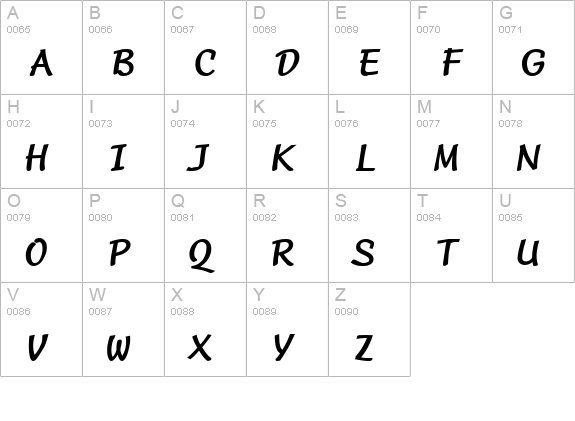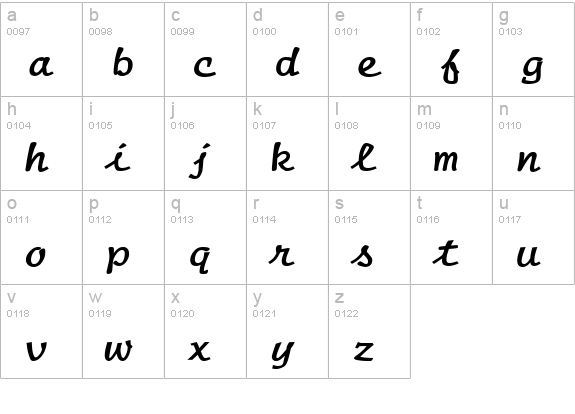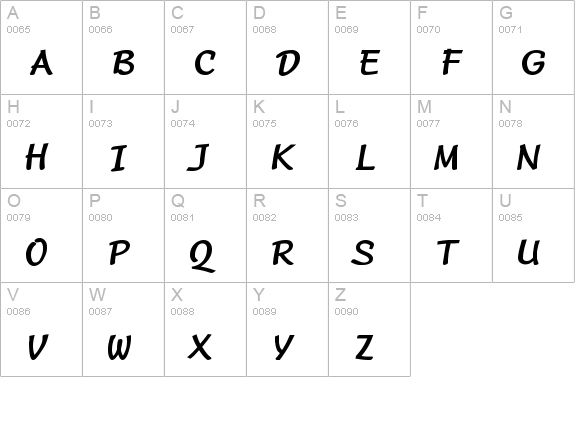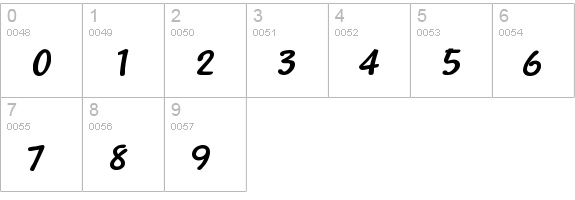
Manuscript Wide Bold is a strong, high-contrast, extended-width variant in the Manuscript typeface family \xE2\x80\x94 well suited to headlines, attention-grabbing titles, and strong calls-to-action.
Manuscript Wide Bold font is a stunning display typeface that exudes elegance and sophistication. With its bold and confident letterforms, this font is perfect for making a statement in any design project. The wide proportions of the letters add a unique touch, making it stand out from other fonts in its category. Whether you're designing a logo, creating a poster, or designing a website, Manuscript Wide Bold font will elevate your design to new heights. What sets this font apart is not only its exceptional design but also its accessibility. Manuscript Wide Bold font is freely available to download at FontsMarket.com. This means that you can easily incorporate this beautiful font into your projects without any hassle or cost. With Manuscript Wide Bold font, you have the freedom to create captivating designs that leave a lasting impression. Its versatility allows it to be used across various design applications, from branding to editorial design and everything in between. The attention to detail in this font is remarkable, with each letter meticulously crafted to ensure seamless legibility and visual impact. The bold weight of the font adds a sense of authority and power, making it ideal for headlines and titles. In conclusion, Manuscript Wide Bold font is a timeless typeface that combines elegance, boldness, and accessibility. Its availability as a free download at FontsMarket.com allows designers of all levels to harness its beauty and versatility without any limitations. Take your designs to the next level with Manuscript Wide Bold font and make a lasting impression.